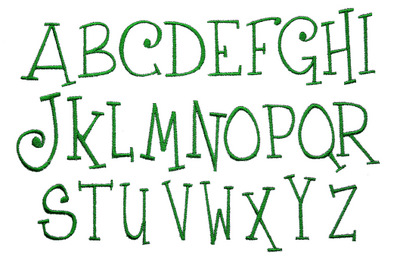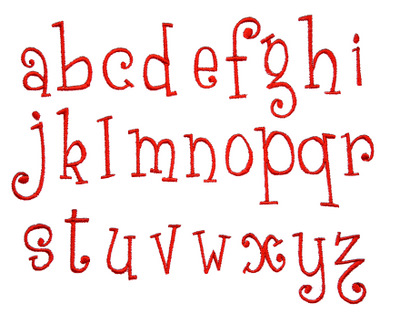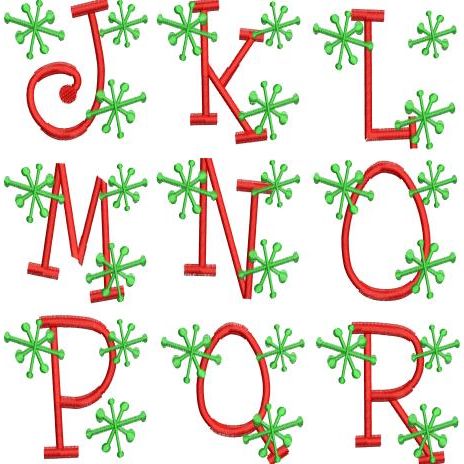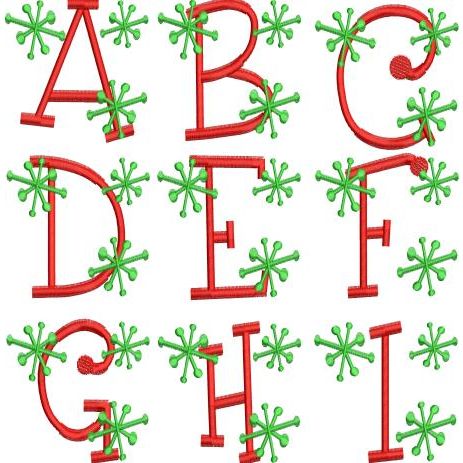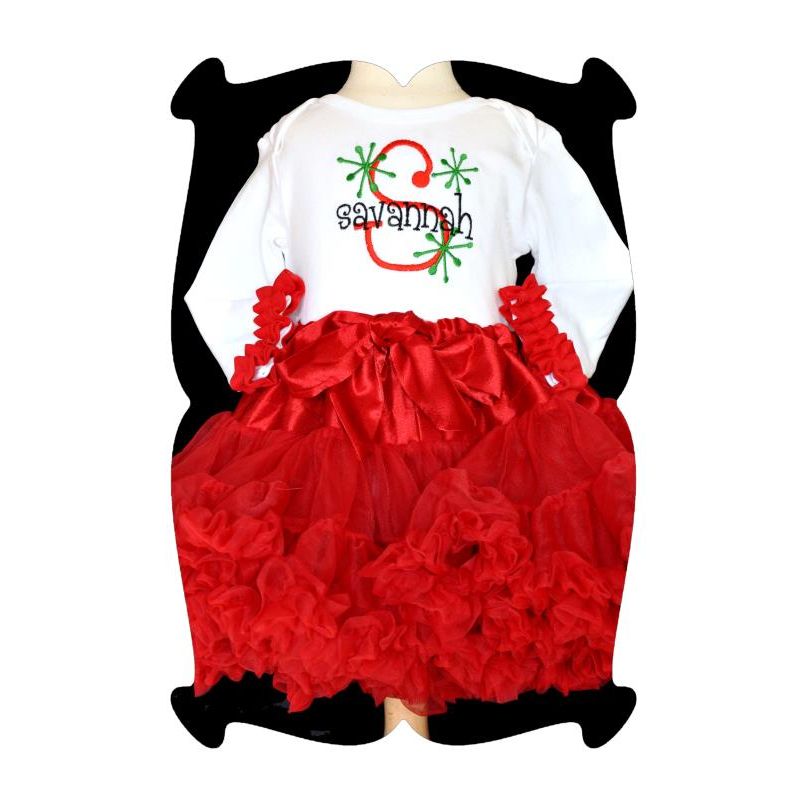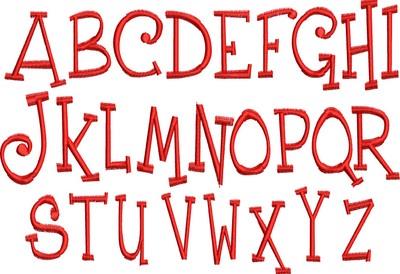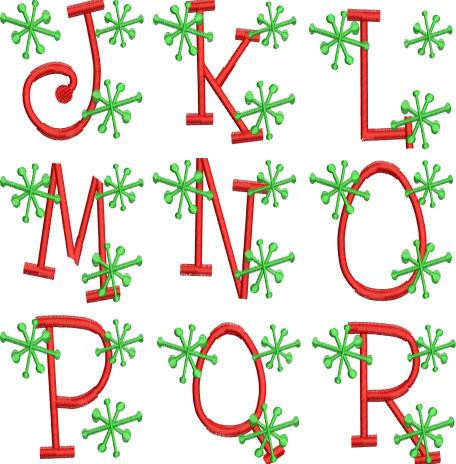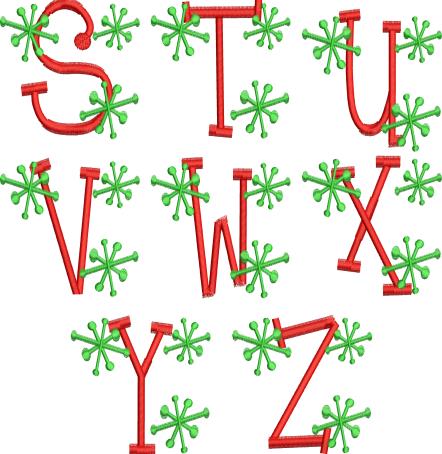
Sparkle Stacked Satin Stitch Embroidery Font
Sparkle Fill Stitch 4 inch:
This design is upper case, letters A through Z, with the retro sparkles already embedded onto the design for you. This design is made to fit the 4x4 hoop sizes.
Santa Sparkle Stacked Monogrammed Font:
The design file also includes Retro Sparkles in small, medium and large sizes.
You can sprinkle these designs onto a shirt, shirt sleeve, pant cuffs, baby blankets, tote bags and anywhere you want to add a bit of "sparkle".